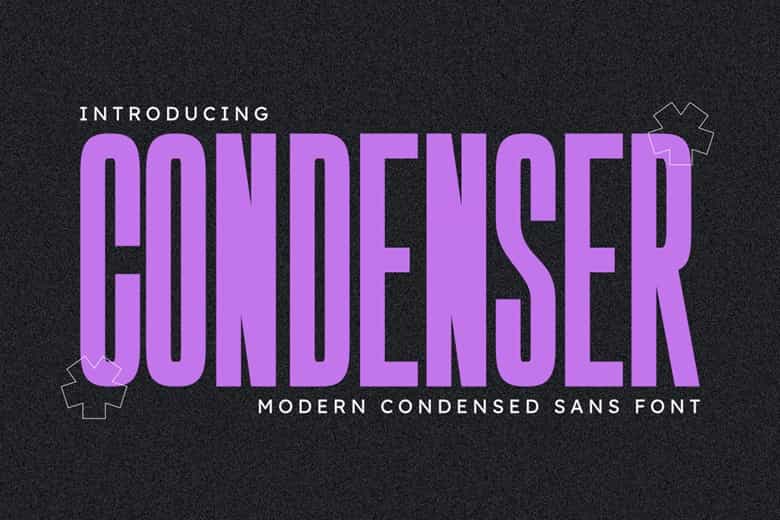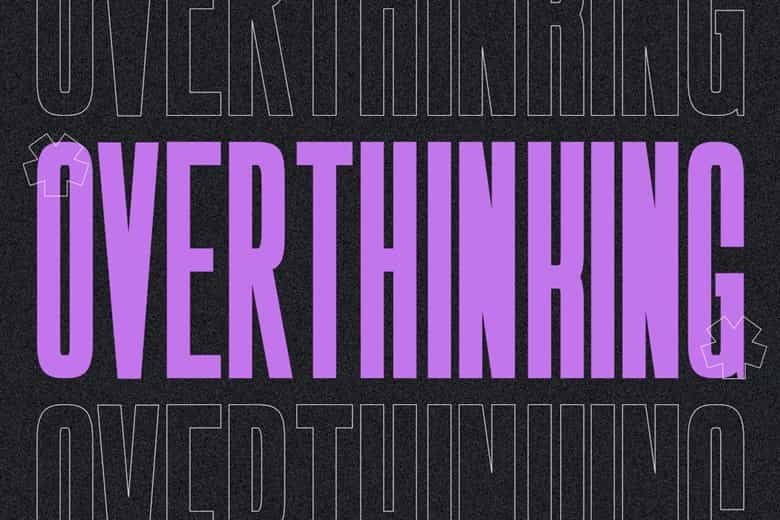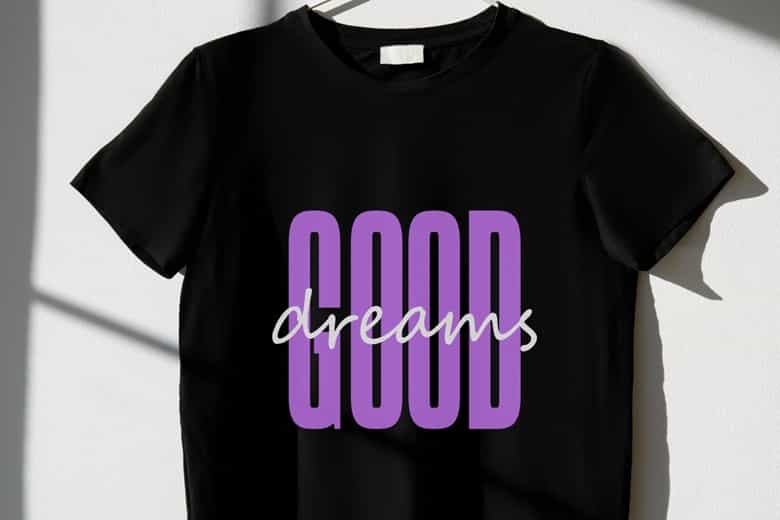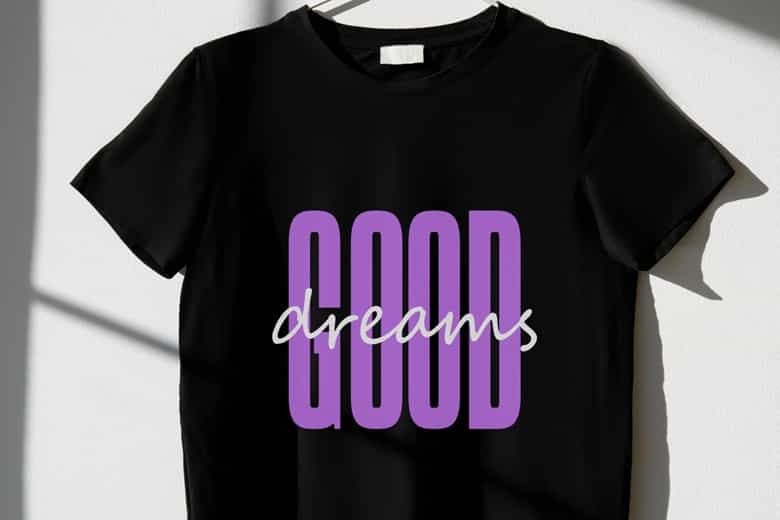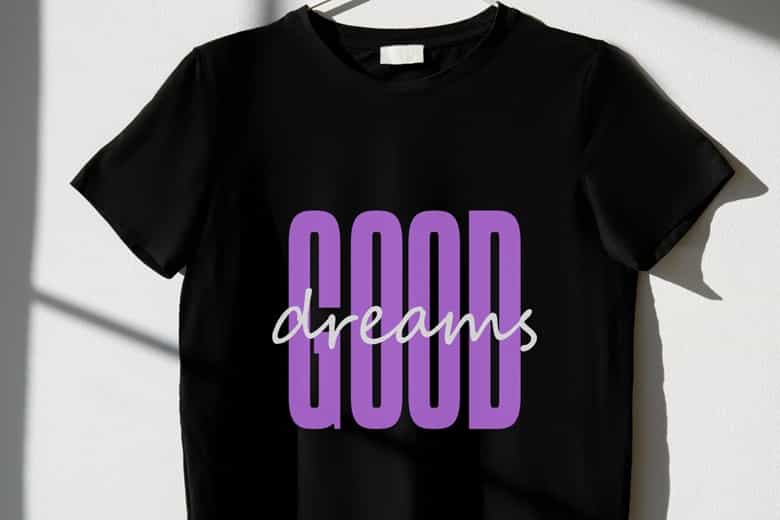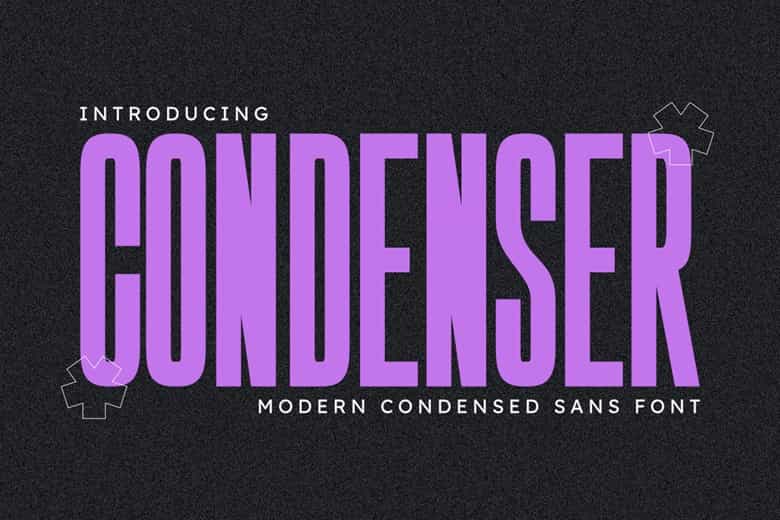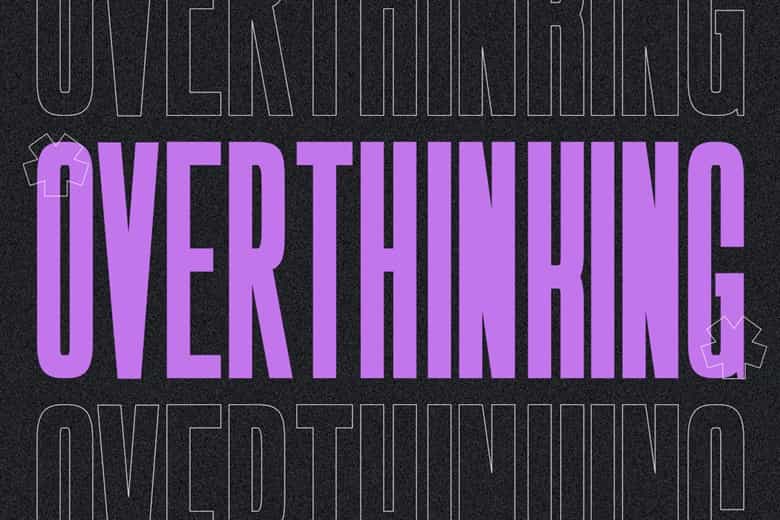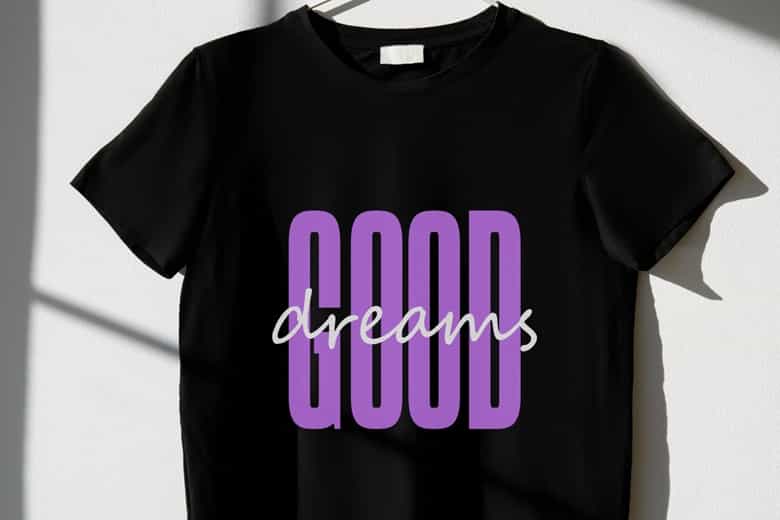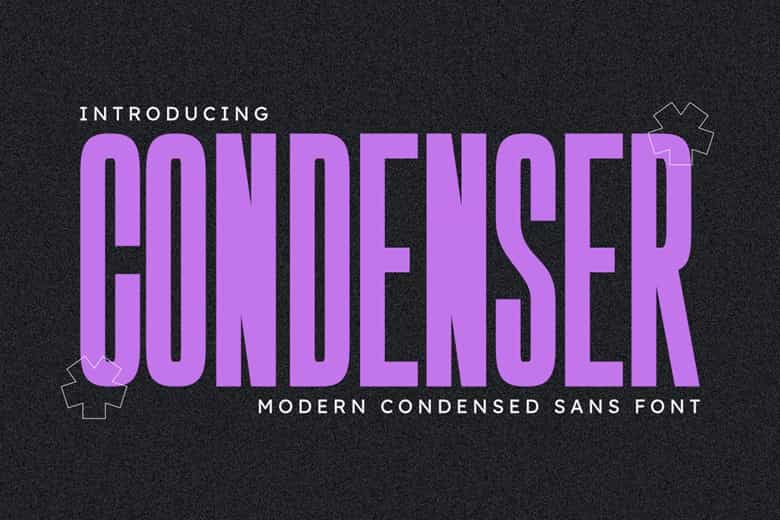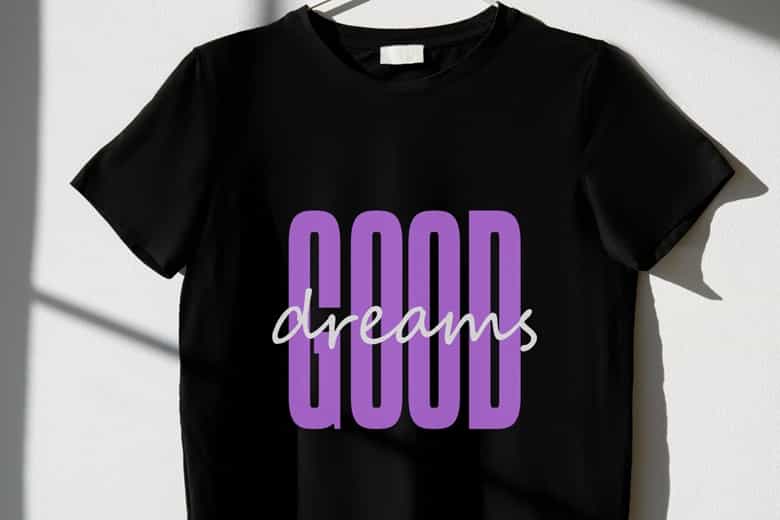
Condenser Font
Condenser is a contemporary condensed sans serif type system full of attitude and maximum impact in minimal width – ideal for the boldest of headlines, editorial spreads, branding, and more. Sleek and tall, it’s well-suited for posters, magazine titles, product labels, film covers, merchandise and any design where assertion meets simplicity. Shape the message your fashion , startup branding , or urban streetwear demands – Condenser captures attention .